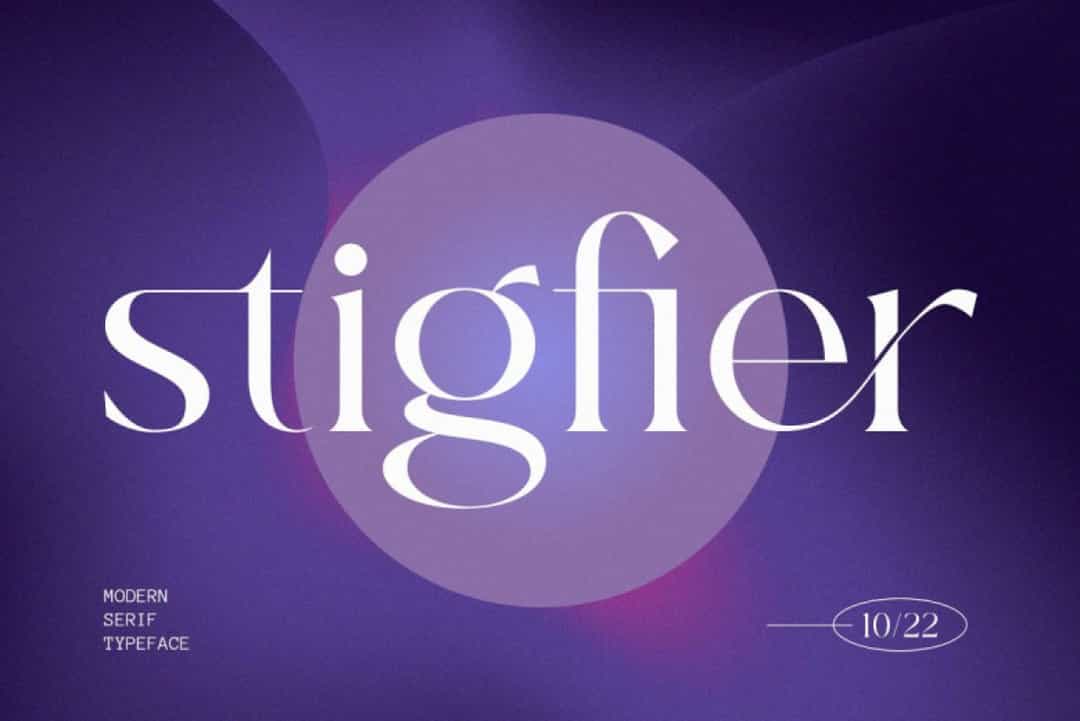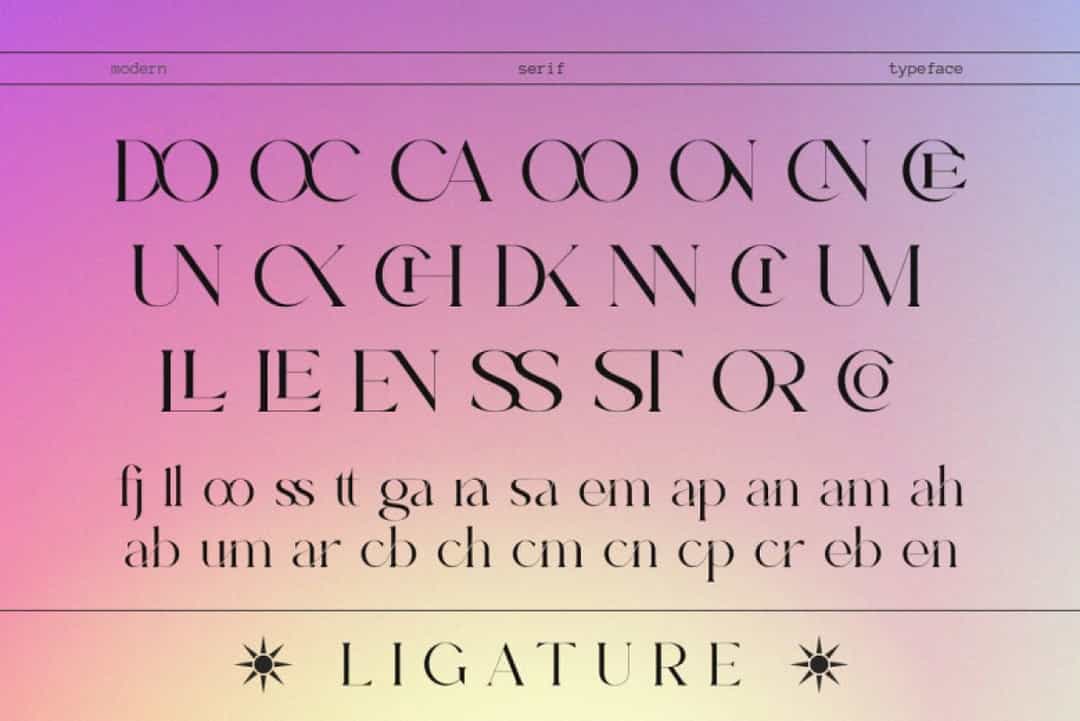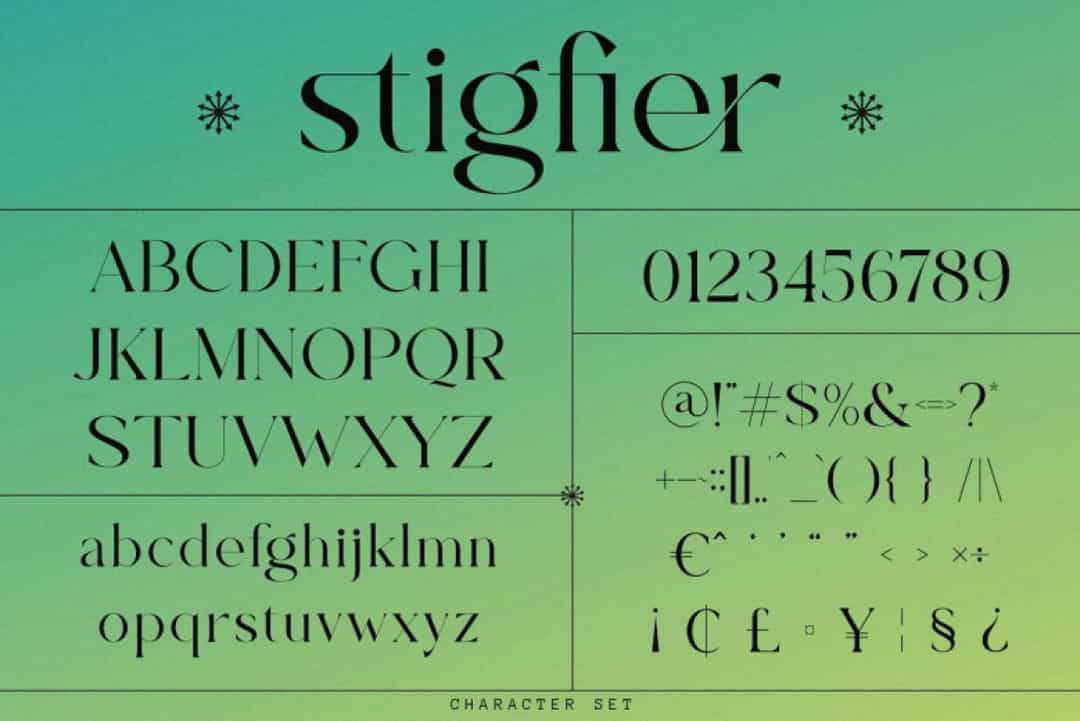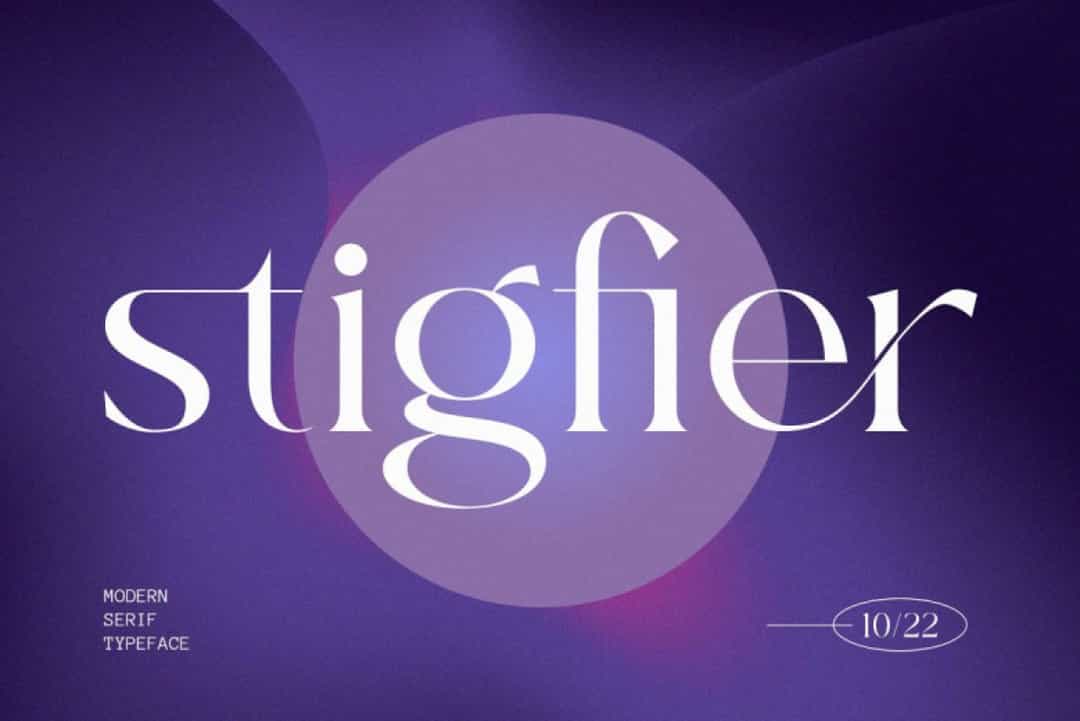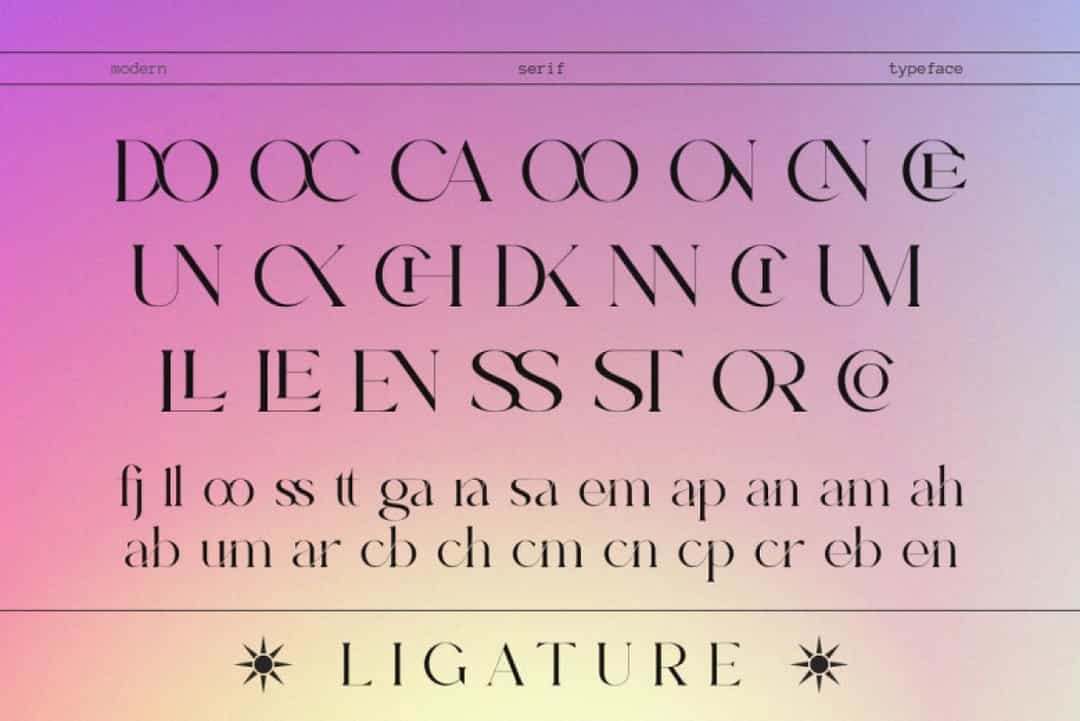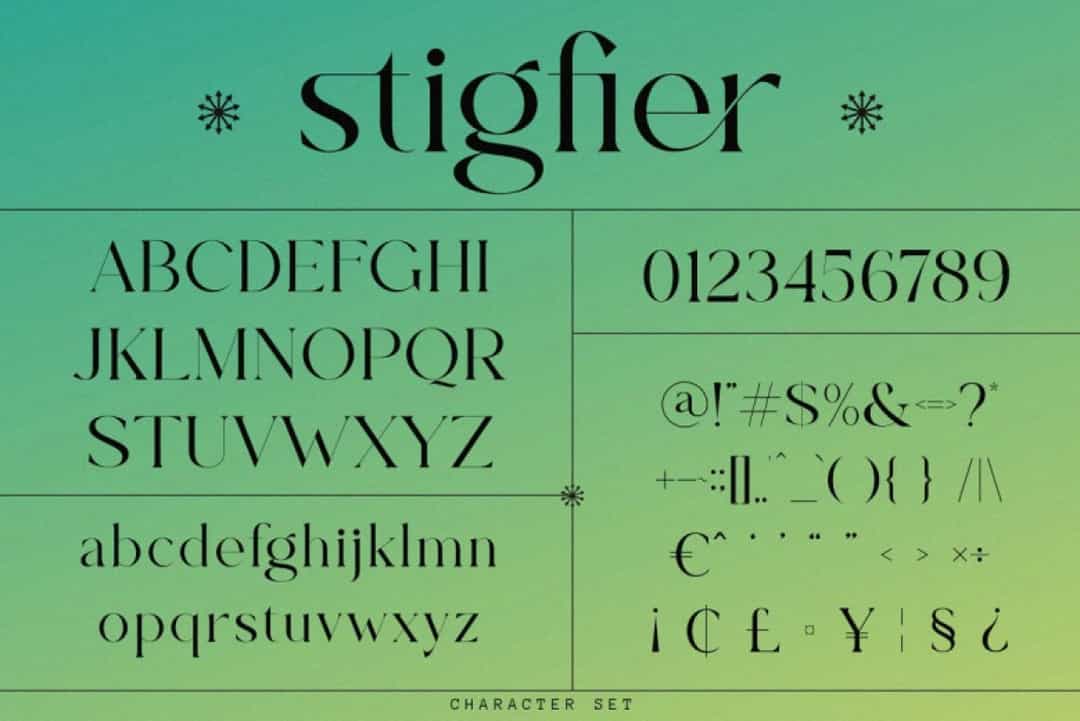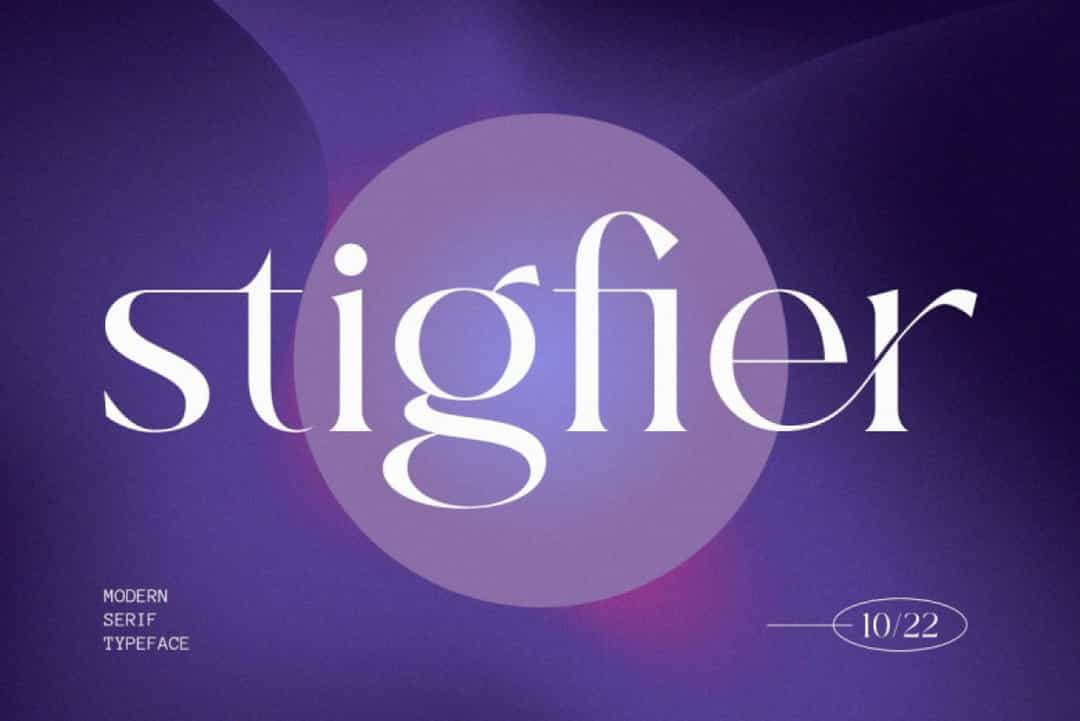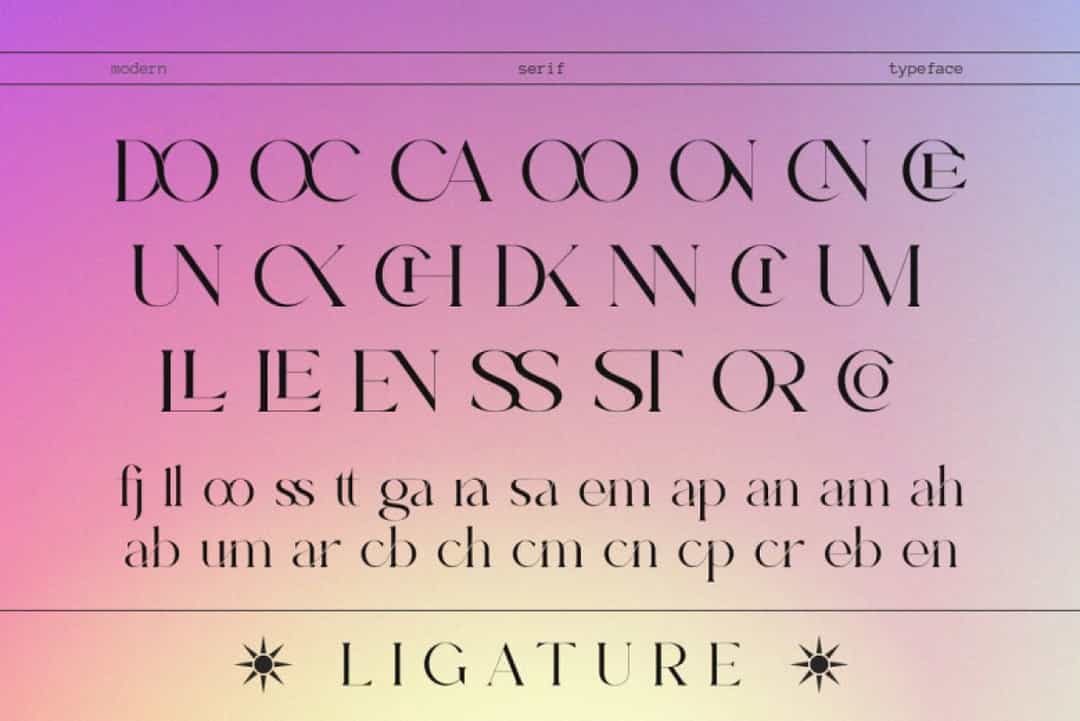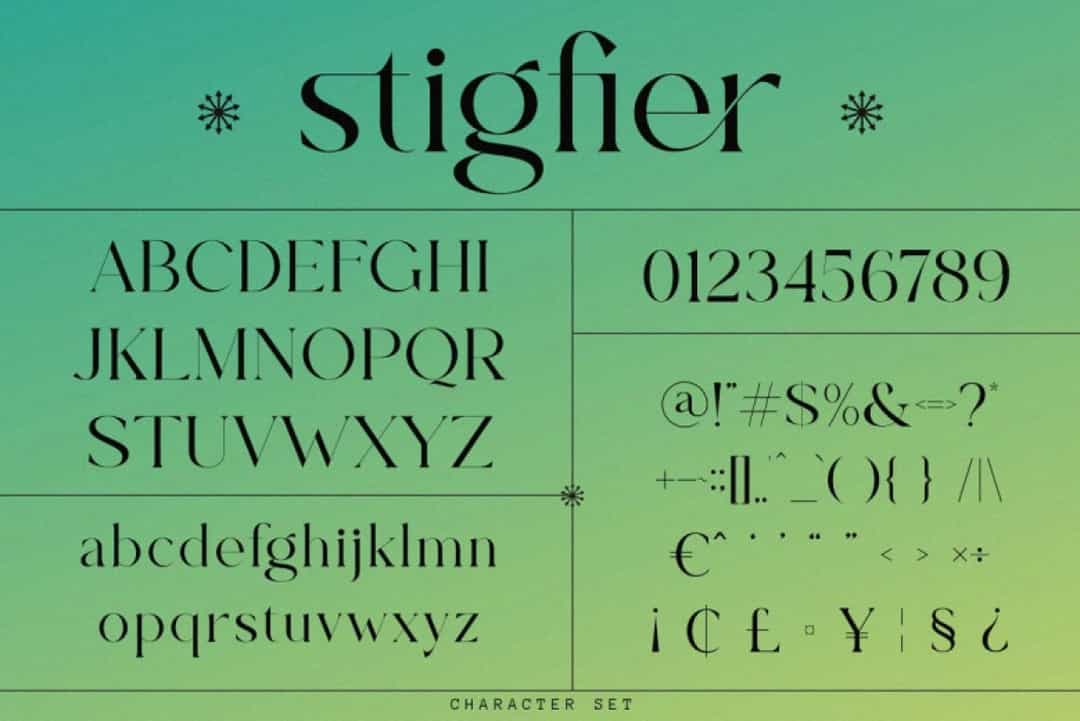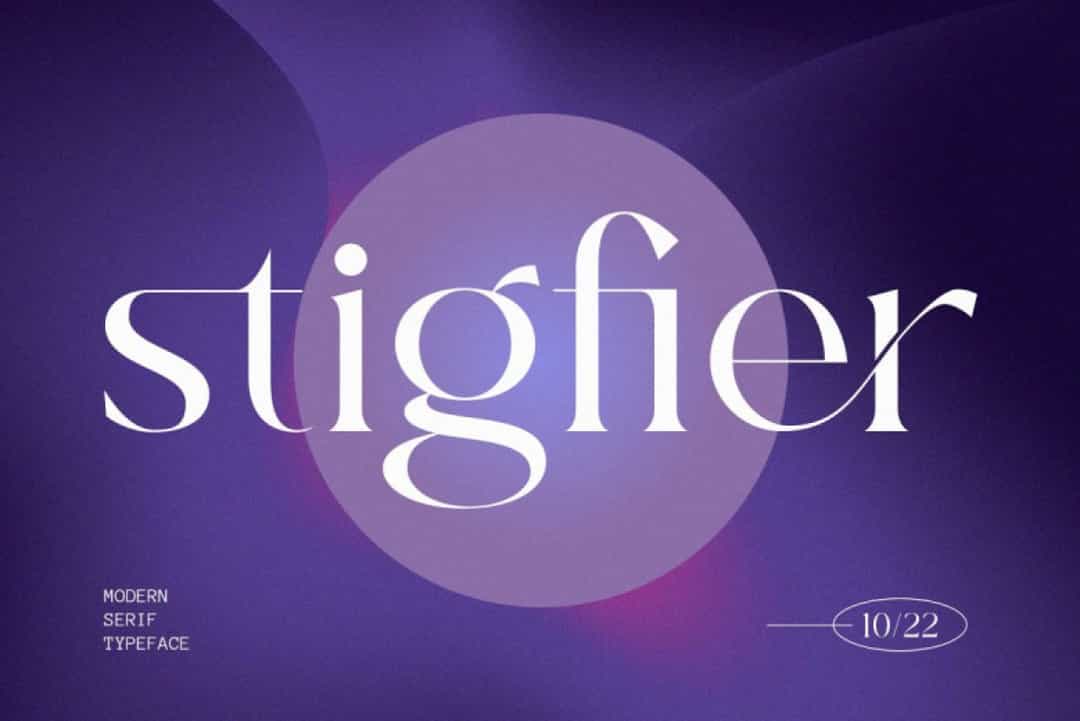
Stigfier is an elegant and contemporary serif typeface perfect for small titles or subtitles as well as text descriptions. Additionally, this font makes an impactful presentation as it’s ideal for use on web pages or the internet, and even useful when writing advertisements about social media or similar topics.